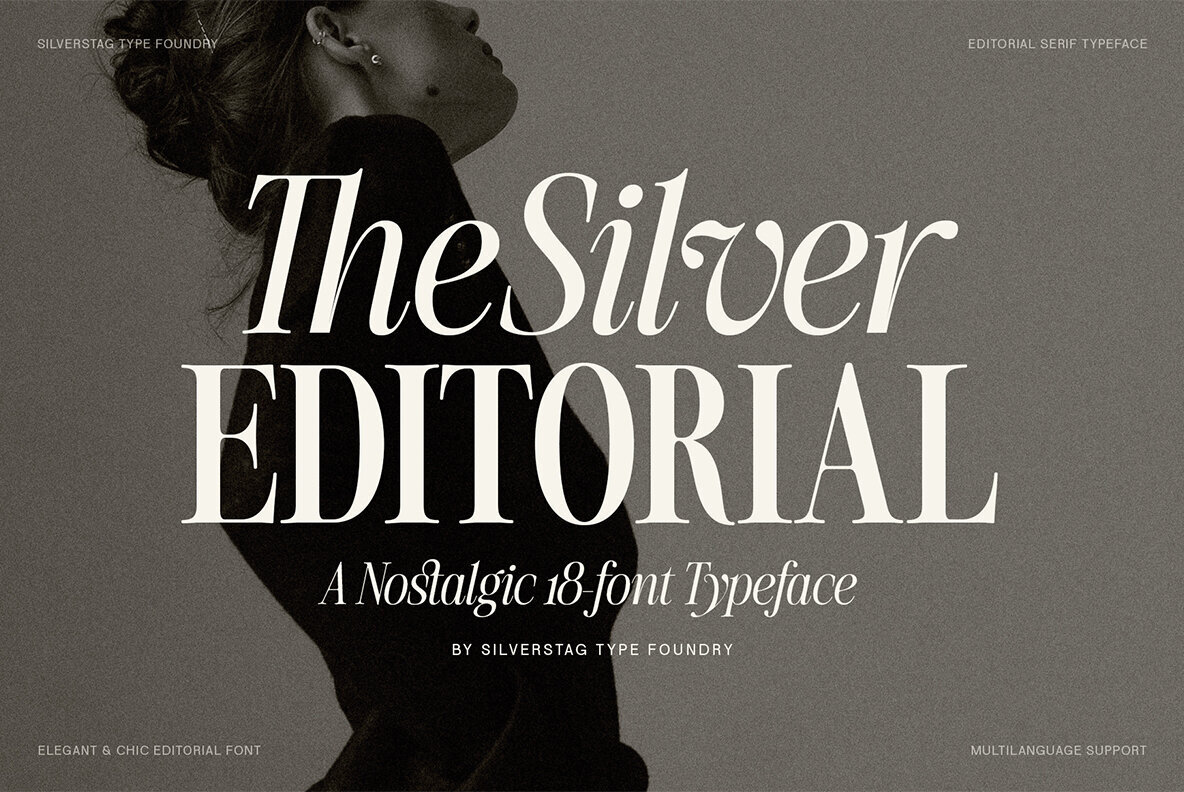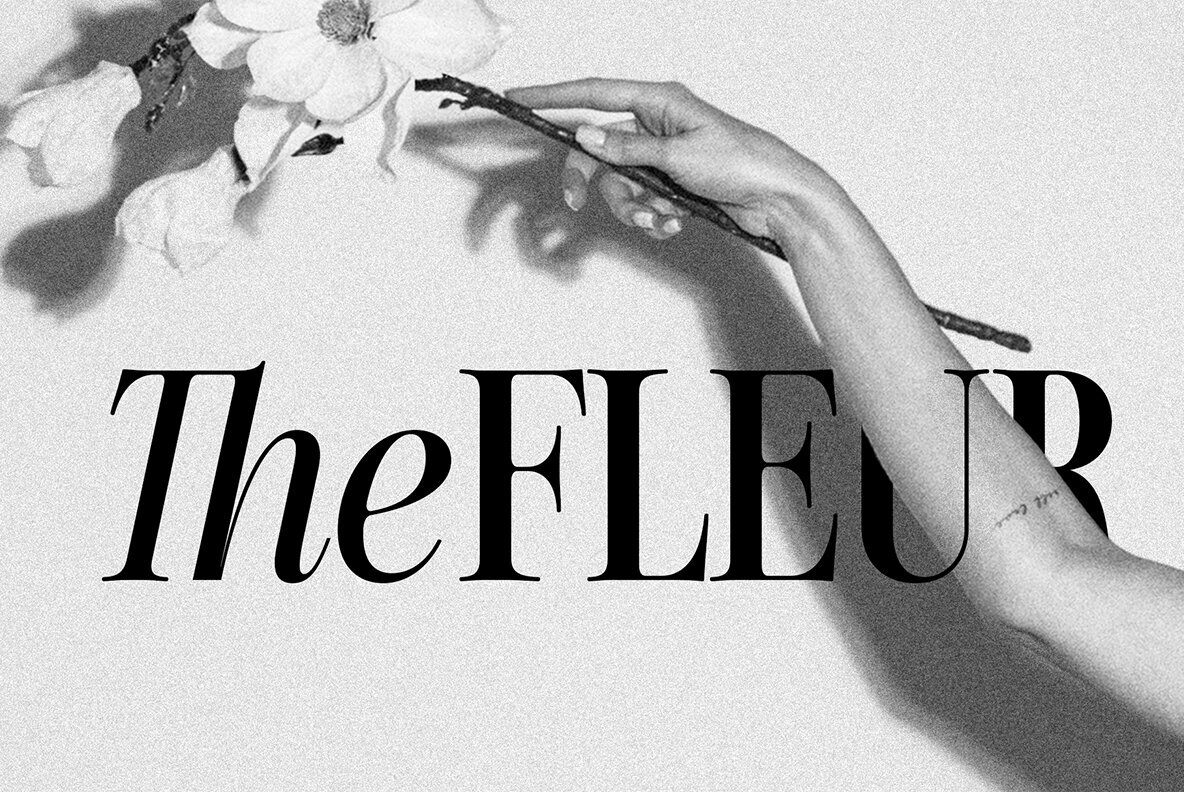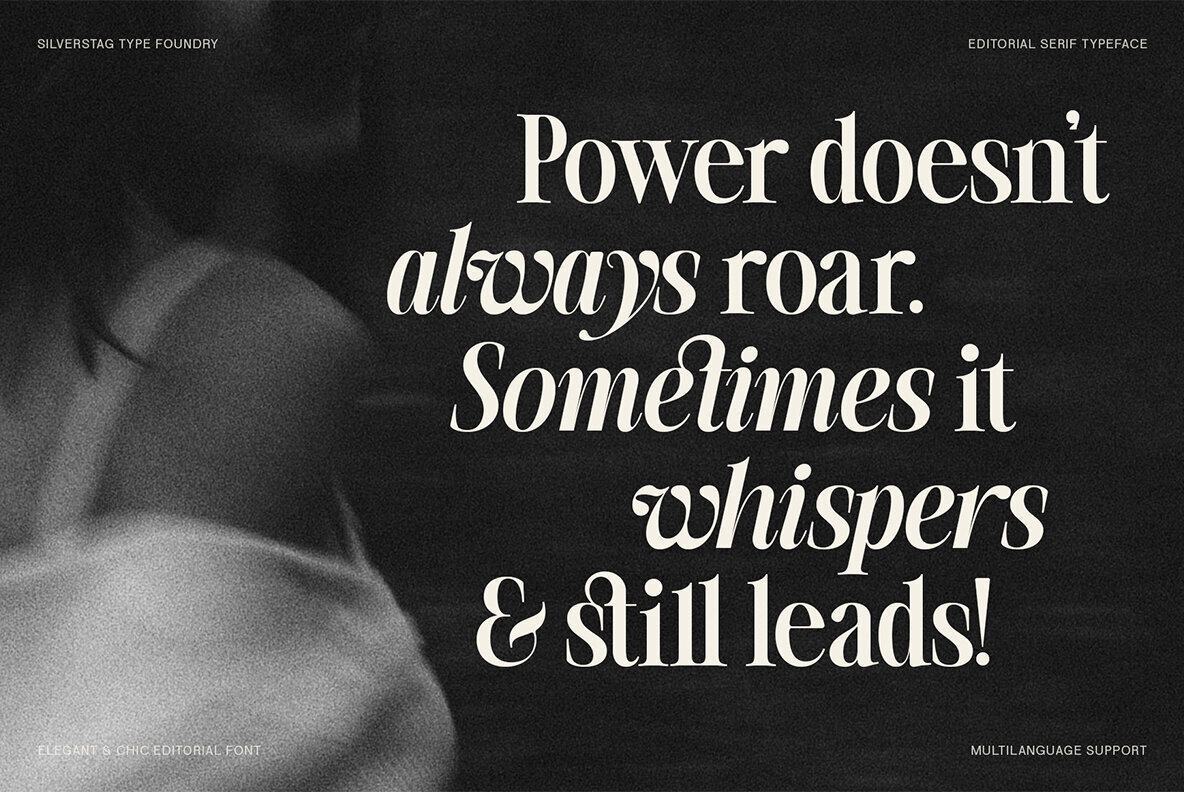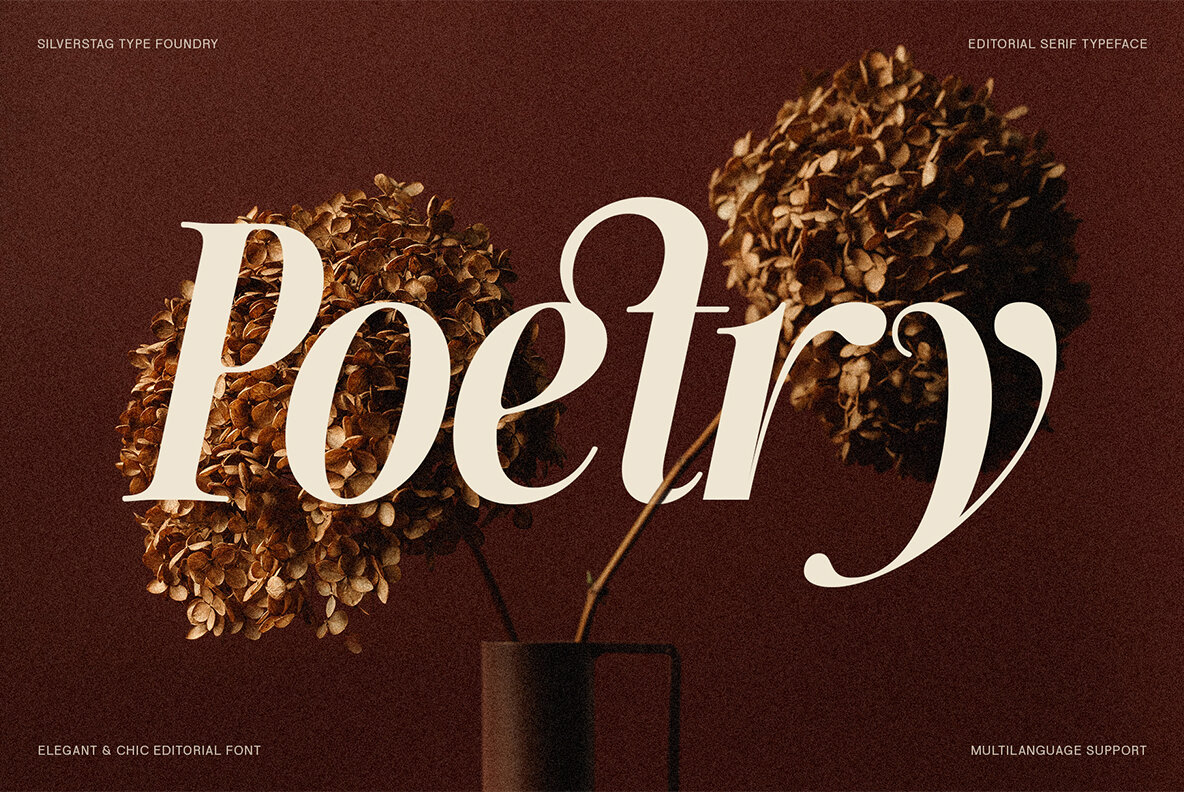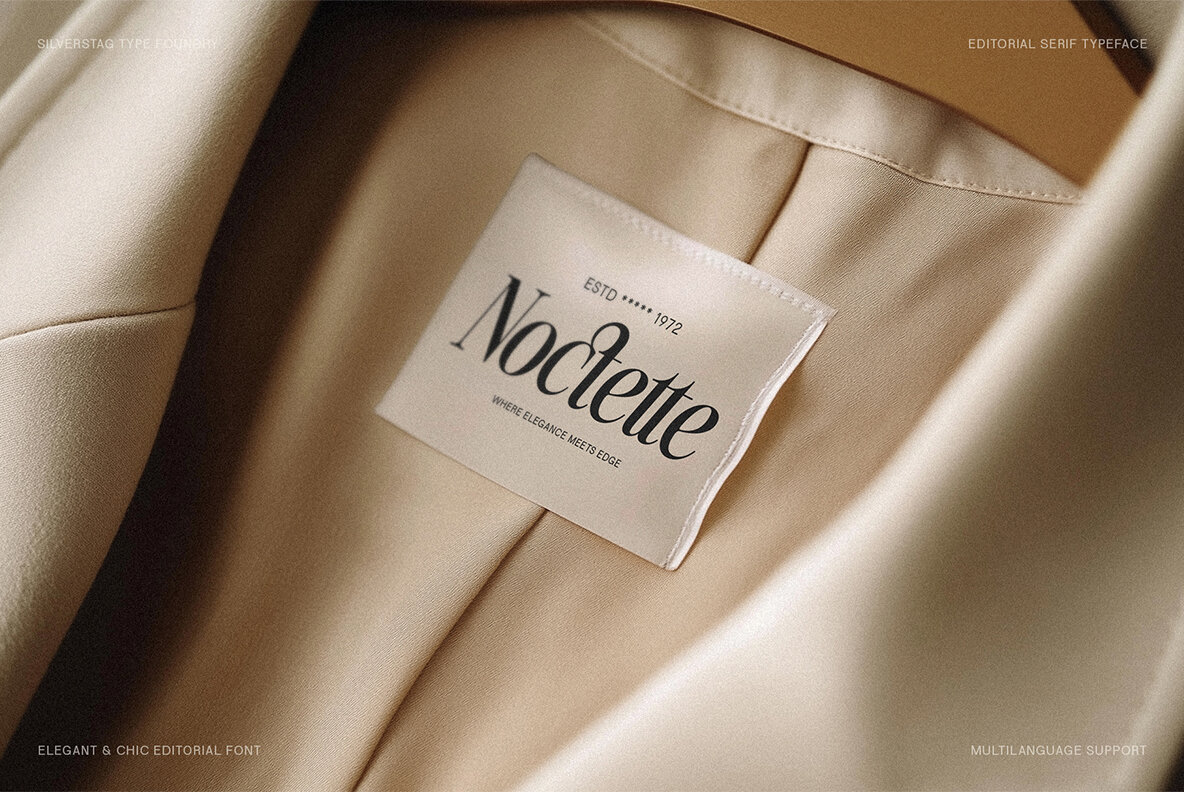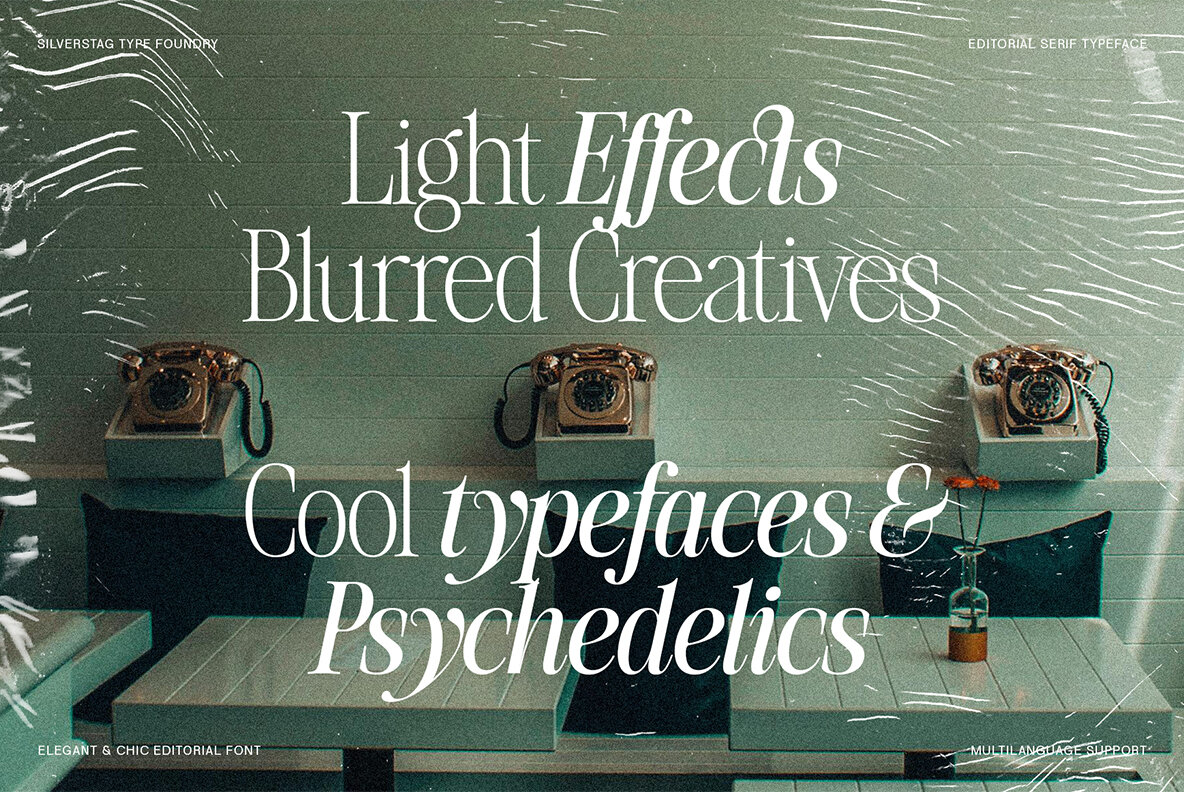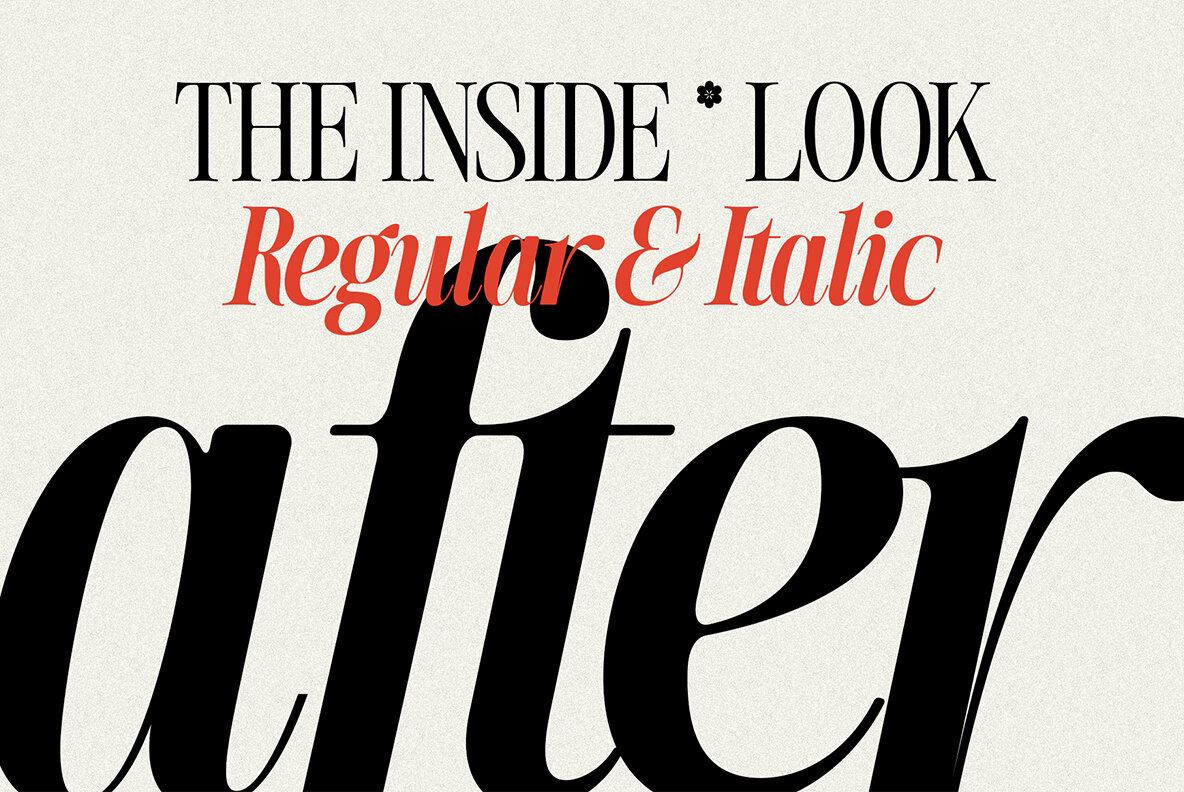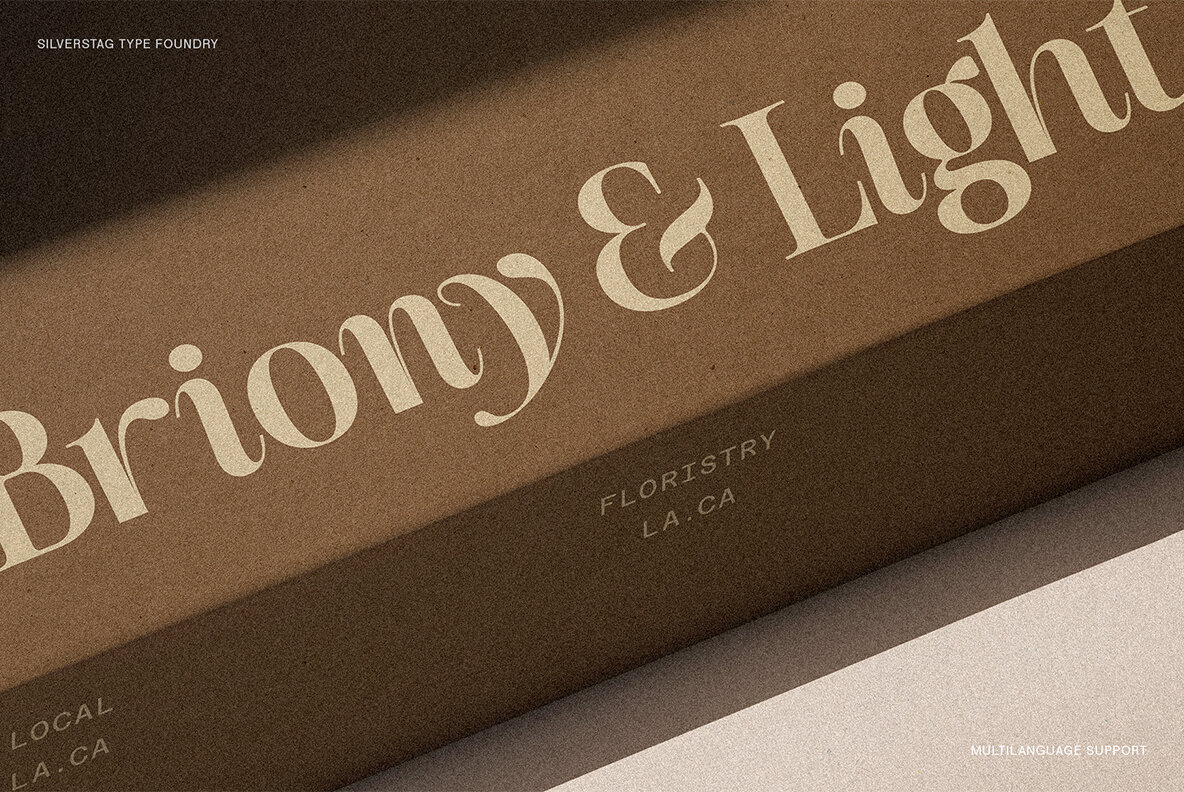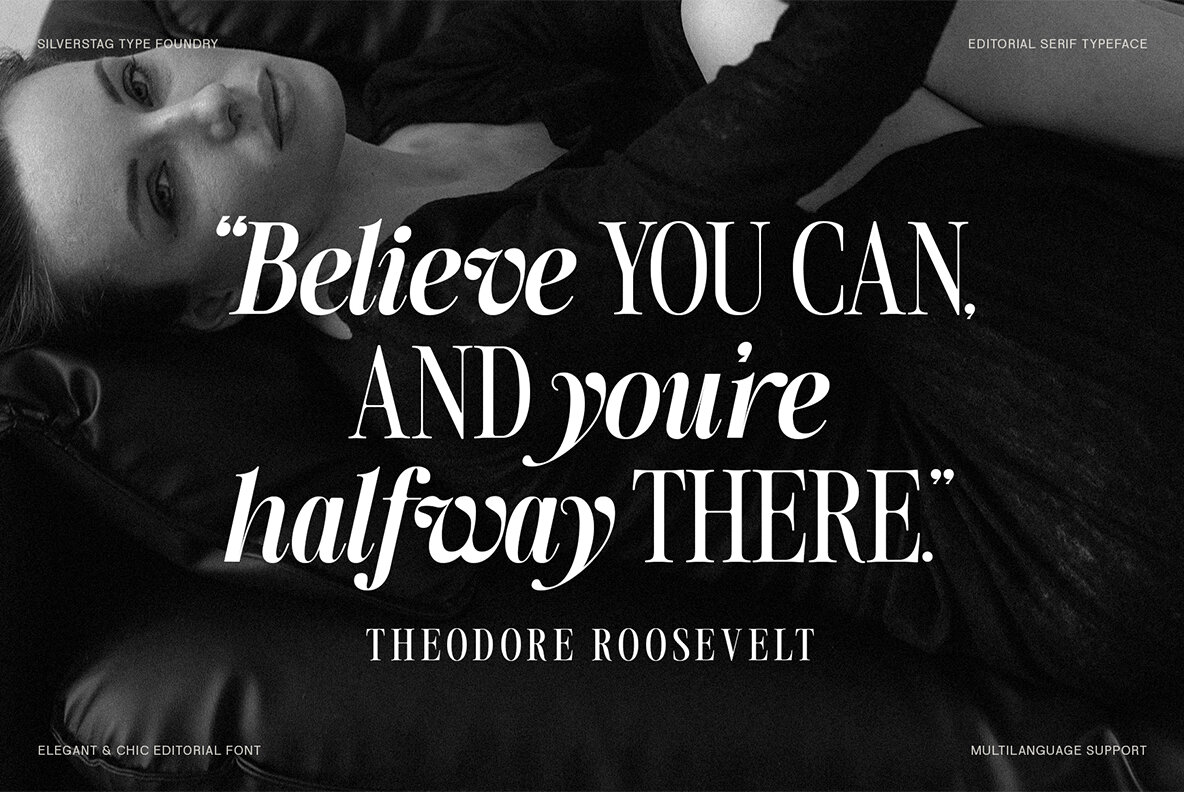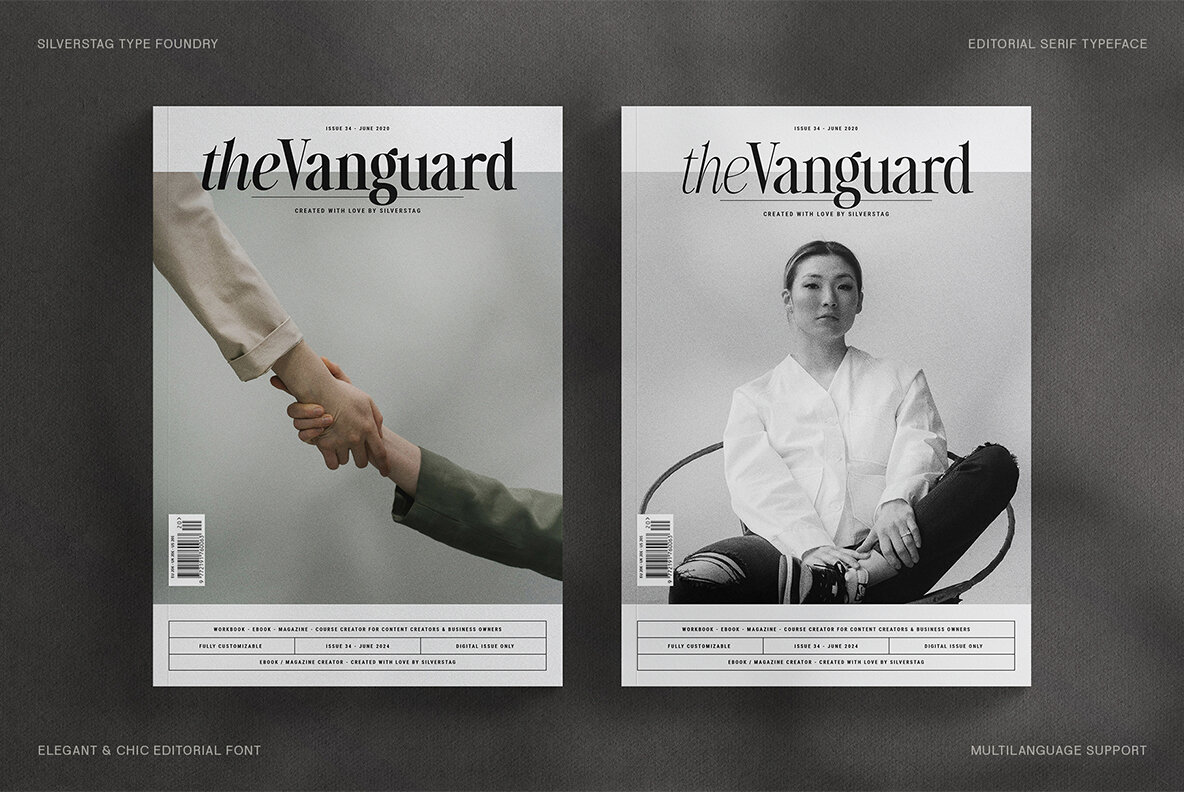
SLTF The Silver Editorial Font
The Silver Editorial is more refined and versatile than ever, now an expansive typographic system of 18 fonts, including 9 weights and italics. This typeface is designed not only for beauty but also for functionality, making it a reliable choice for designers. Infused with the spirit of iconic 1980s typefaces, The Silver Editorial brings a modern sophistication to any project. Channeling the bold and expressive serifs that adorned high-fashion magazines of the 80s, this typeface captures vintage charm while extending contemporary design boundaries. It strips away excess, resulting in a polished form suited for the digital era. The Silver Editorial's power lies in its command over headlines and seamless transition to elegant body copy, while the dynamic italics add an artistic touch. Supporting over 100 languages, this typeface is crafted for designers seeking a unique blend of retro and modern refinement that resonates on a global scale.The Silver Editorial: Nostalgic Typeface with a Modern Twist
Where It Shines